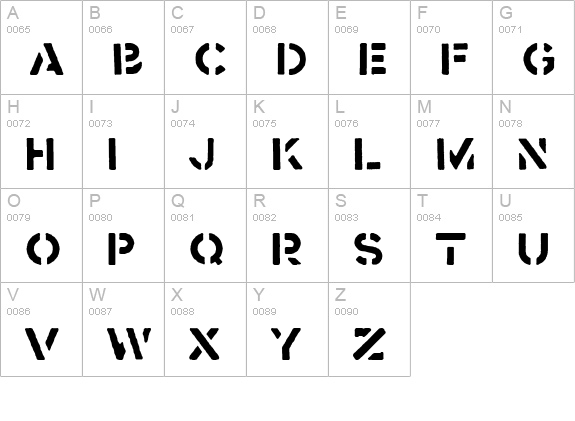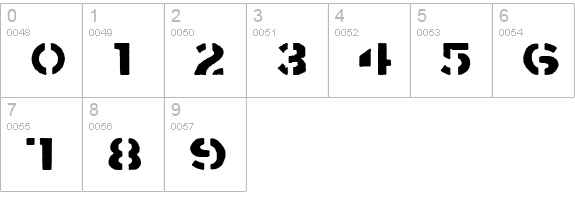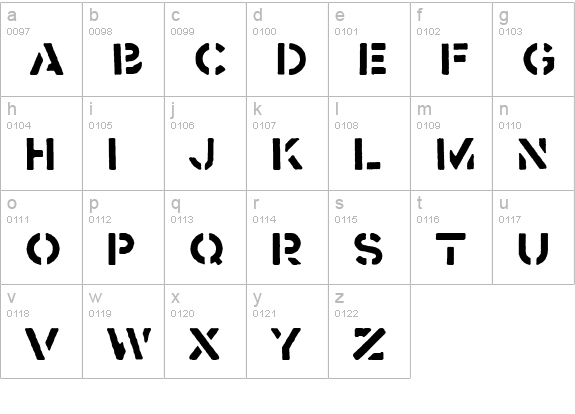
Crass is a free for personal use font in the Modern > Stencil category. It has been downloaded 16 times and is available for Windows, Mac and Linux.
Crass font is a bold and edgy typeface that exudes a rebellious and powerful aura. With its sharp angles and strong lines, this font is perfect for making a bold statement in various design projects. Whether you want to create eye-catching headlines, striking logos, or impactful posters, Crass font will definitely grab attention. One of the best things about Crass font is that it is completely free. Yes, you read it right! This amazing font is freely available to download at FontsMarket.com. It's a true gem for designers and creatives who are looking for a high-quality font without breaking the bank. The versatility of Crass font is another reason why it has become a popular choice among designers. It can be used in a wide range of projects, from modern and urban designs to vintage and grunge aesthetics. Its unique character shapes and distinct letterforms make it stand out from the crowd, adding a touch of personality and uniqueness to any design. Whether you're creating a poster for a music festival, designing a logo for a streetwear brand, or crafting a magazine cover with an alternative vibe, Crass font will help you achieve the desired impact. Its powerful presence will grab attention and make your message impossible to ignore. So why wait? Download Crass font now, and start creating stunning designs that leave a lasting impression. Visit FontsMarket.com to get your hands on this amazing font for free and unlock its full potential in your creative projects. Don't miss out on this opportunity to add a touch of boldness and rebellion to your designs!